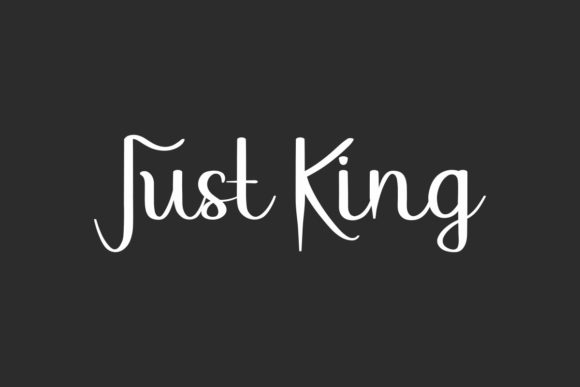
Dive into the world of vintage charm with Just King Font, a mesmerizing script font that oozes elegance and nostalgia. Inspired by the timeless beauty of classic literature, Just King captures the essence of yesteryears, adding a touch of sophistication to your design projects.
Immerse yourself in the enchanting world of Just King, a script font that embodies the allure of vintage literature. Its meticulously crafted characters dance across the page, evoking a sense of timeless elegance and captivating your audience with their intricate details.
With Just King Font, you'll embark on a journey through time, where words become art and stories come alive. Its graceful lines and sweeping curves add a touch of romance and intrigue to any project, whether it's a heartfelt letter, a captivating book cover, or a stunning poster.
As you explore the depths of Just King Font, you'll discover a treasure trove of creative possibilities. Its versatile nature makes it the perfect companion for a variety of design endeavors, from wedding invitations and greeting cards to social media graphics and product packaging.
Unleash your creativity and let Just King Font guide you on a journey of self-expression. Its intuitive design makes it effortlessly easy to use, allowing you to focus on conveying your message with style and impact.
Don't miss out on the opportunity to elevate your designs with the captivating allure of Just King Font. Let its vintage charm take you on a journey through time, leaving an unforgettable impression on your audience.